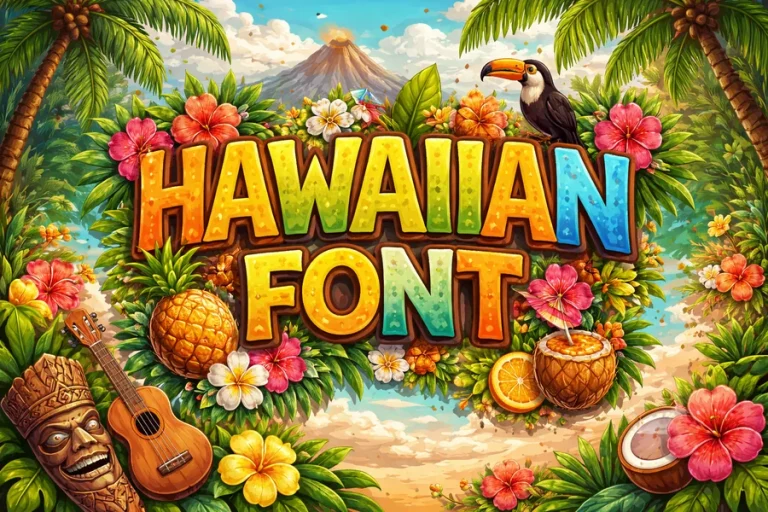
Hawaiian Font Styles That Bring Tropical Vibes to Design
The image of a Hawaiian font is immediately associated with sunny beaches, palm trees that move in the wind, colorful flowers, and the island culture that is relaxed. This kind of typography is commonly employed to bring about a tropical atmosphere by designers that is warm, friendly, and inviting. It may feature on travel posters, summer parties invitations, restaurant branding, or on the logo of a surf shop, but either way; this type of lettering assists in making the message appear fun and relaxed.
The Hawaiian-inspired lettering is more personality-oriented and focuses on the visual attractiveness as opposed to formal documents when using traditional fonts. A lot of them have curvy lines, jovial lines, and ornaments, which carry a touch of the life on an island. They can be used well to ensure designs become unique and memorable as far as identity creation is concerned.
This paper shall examine the uniqueness of this typography, its application area, and how to select the most suitable one in your project.
What Makes a Hawaiian Font Unique
Hawaiian-style typeface normally is an indication of the cultural and natural themes that relate to the Hawaiian islands. Although there is no official style, there are a lot of fonts that have common design features.
Among the most evident characteristics we may single out smoothing and rounding of letterforms. These curves give the effect of leisure that is consistent with the serene surroundings of the island. The letters are frequently softly flowing as opposed to hard and harsh.
The other significant thing is the playful and decorative appearance. Other fonts have tiny detailing like waves, leaves, tiki patterns or flower like shapes which are indicative of the world of tropical culture. These elements even though subtle contribute to support the theme.
Another element that is very crucial when designers make use of these fonts is color. The tropical typography is well matched by bright colors such as coral, turquoise, yellow, and sunset orange, which make the design look vibrant and joyful.
Due to these features, the Hawaiian-style lettering is frequently used in the projects, which attempt to create a feeling of vacation or an adventure.
Popular Uses in Design and Branding
Tropical typography is applied in many industries and creative projects. Designers use a Hawaii font when they need to introduce a friendly and cozy feel.
A typical application is the tourism and travelling marketing. This style is commonly used in posters, brochures, and website banners of beach destinations to make the visual impression of the thought of relaxation and escape.
This typography is also used in restaurants and bars that are of the island theme. The Hawaiian typeface can instantly convey the customers what experience they will get and either it will be a tiki bar, a restaurant based on seafood or a smoothie shop.
Another application that is popular is event invitations. These fonts are commonly used in summer parties, luaus, beach weddings, and tropical birthdays to predetermine the type of party before it has even taken place.
Even clothing lines and surf shops adopt the island-style lettering in their logos or advertisements as it relates successfully to beach culture and to outdoor lifestyles.
How to Choose the Right Tropical Typeface
Not all of the tropical typefaces will be suitable to all projects. To choose the appropriate one, one has to think about the purpose of the design, its audience and its general mood.
To start with, there is the amount of playfulness required. Other Hawaiian-themed fonts are very ornamental and emphatic whereas some are more simple and less noticeable. A less stylized and more professional brand could be more effective than a brand that is too stylized.
The second thing is to consider readability. What seems beautiful when typed in big fonts can prove problematic when the same font is used in small fonts. These fonts are regularly used in headlines or as logos by designers and combined with a more basic font in the body text.
Another thing that should be considered is the correspondence of the typography with the other components of the design. The font can be increased with tropical imagery, use of bright colors and illustrations related to the beach.
Lastly, never forget to test the typeface in various sizes and designs. This makes the style clear and appealing in posters, social media graphics or printed materials.
Tips for Using Hawaiian Fonts Effectively
Tropical typography needs to be balanced to be used effectively. As much as these fonts are attractive, they must not dominate the entire design but enhance the general design.
Among the useful methods is to restrict the use of fonts in a single project. When too many stylized types are combined they may give a design a messy appearance. Rather, combine the tropical typeface with a slimline sans-serif or plain serif typeface.
They can work well for brands related to tourism, food, beach culture, or summer events, but they may not be suitable for formal or corporate industries.
Can Hawaiian fonts be used for body text?
Most designers use them for headlines or titles because highly decorative styles can be difficult to read in long paragraphs.
What fonts pair well with Hawaiian-style typography?
Simple sans-serif fonts or clean serif fonts pair well with tropical typefaces because they balance the decorative style and maintain readability.